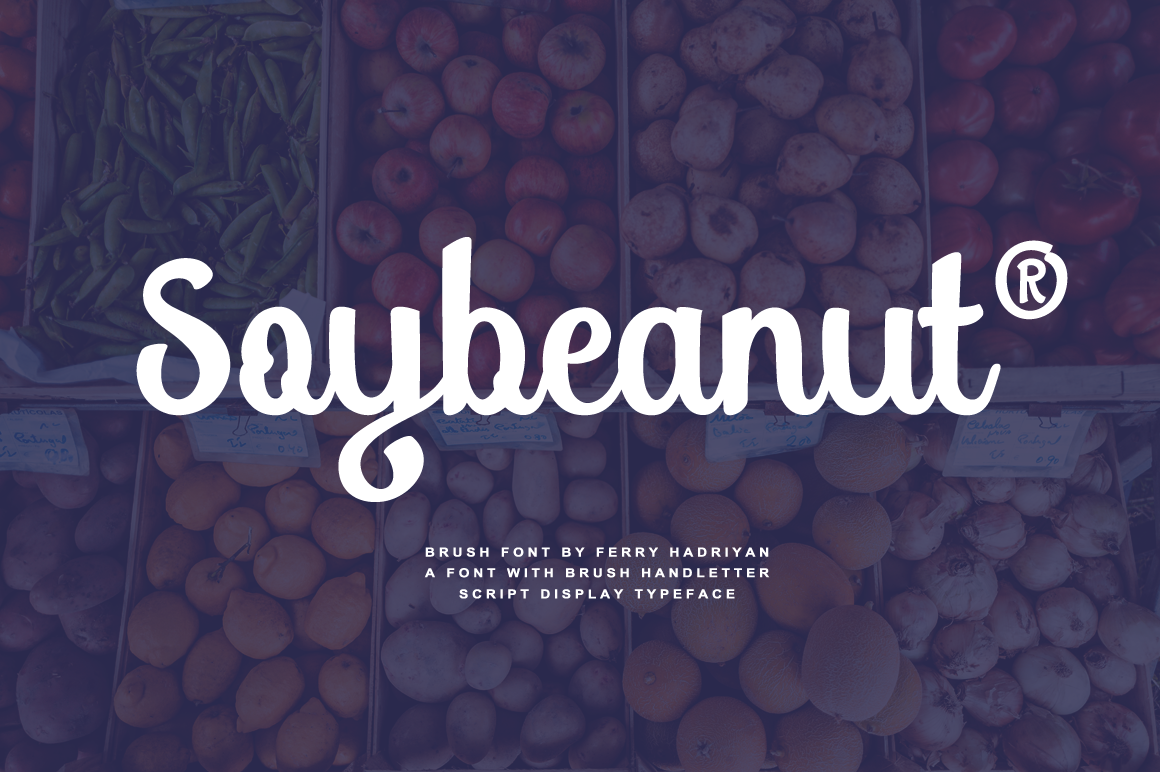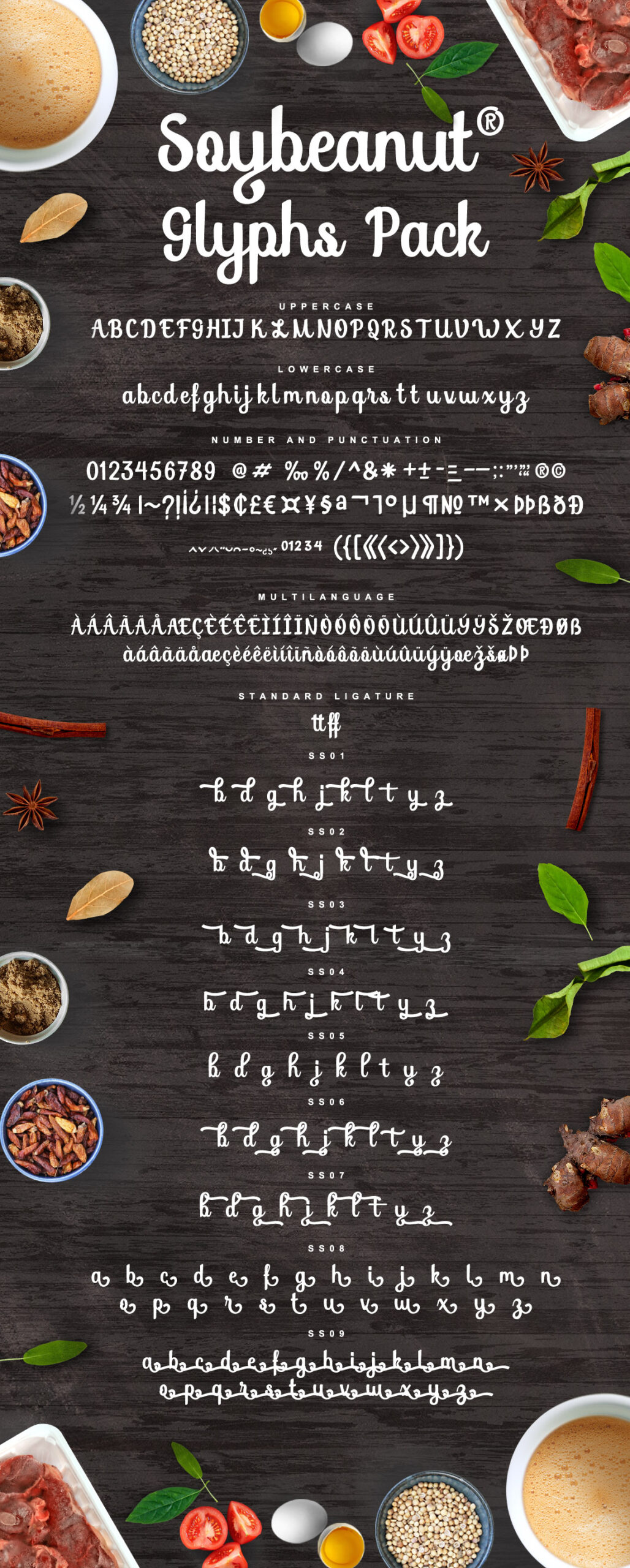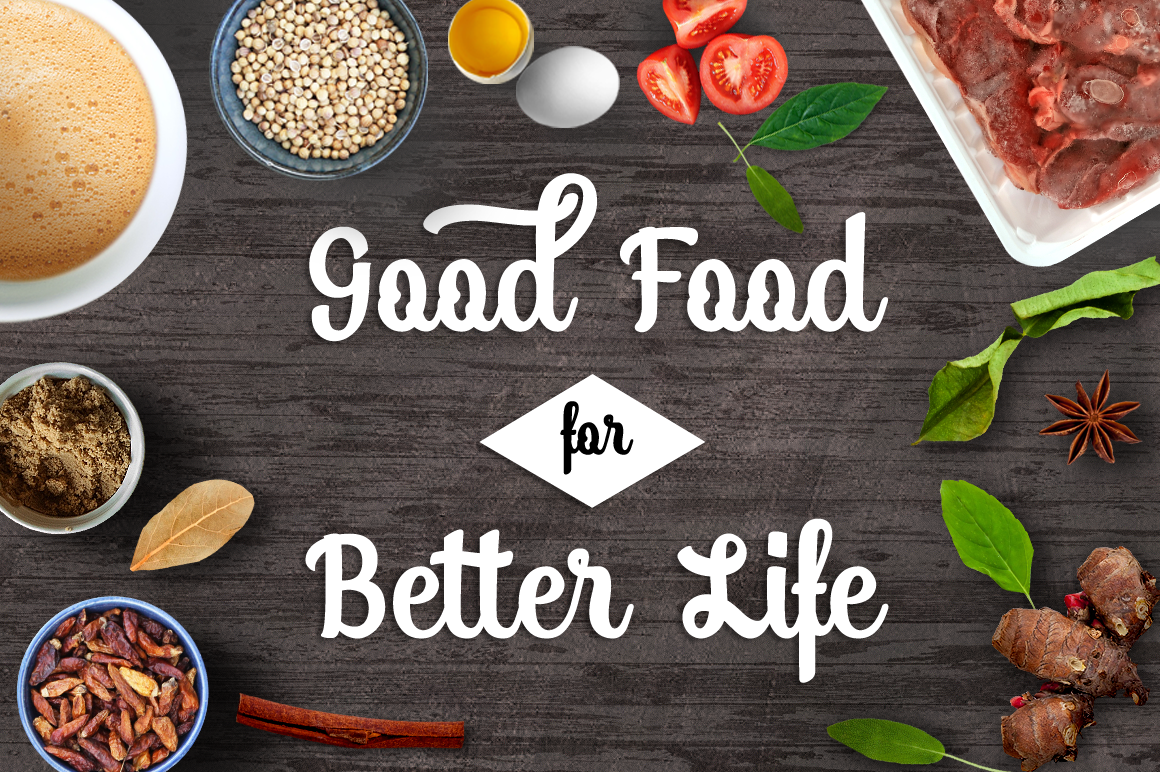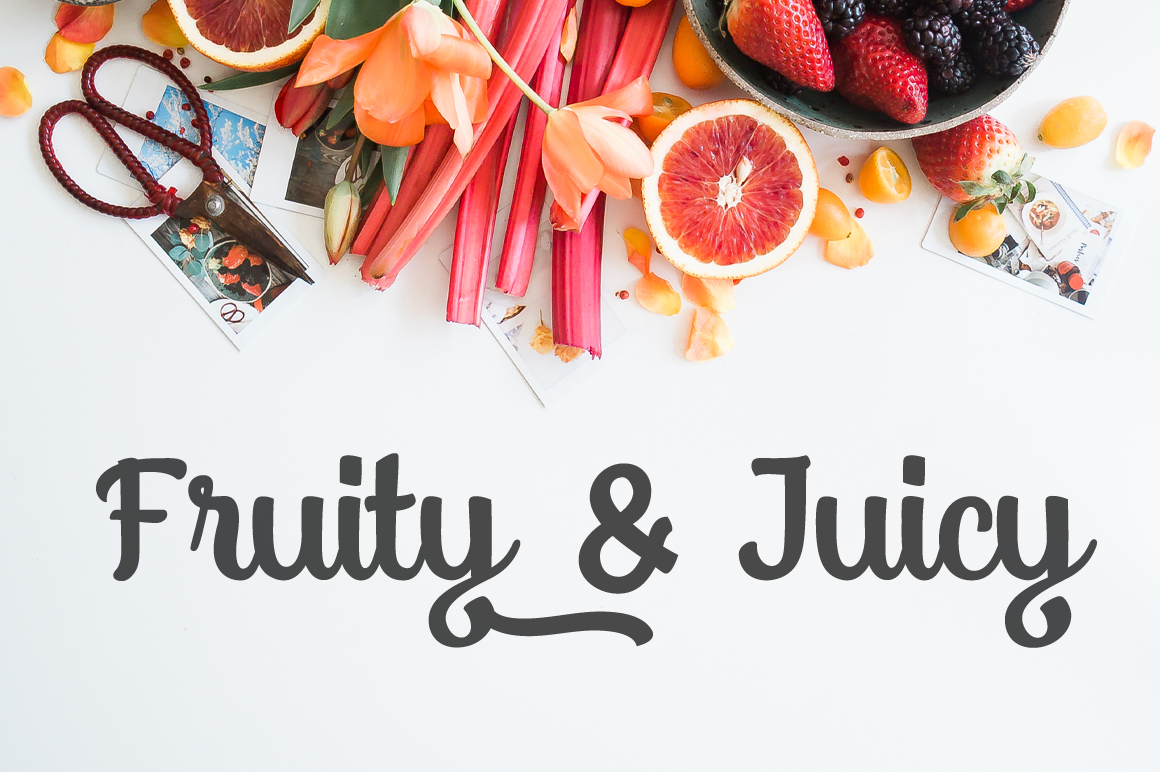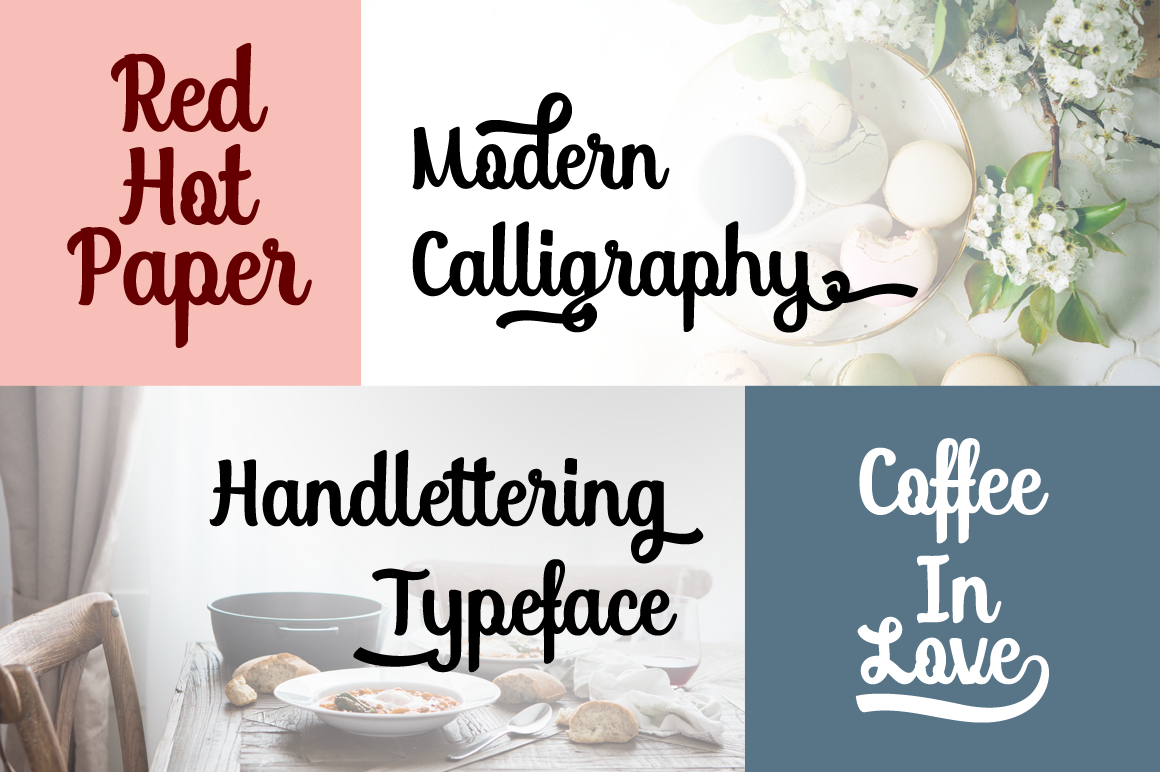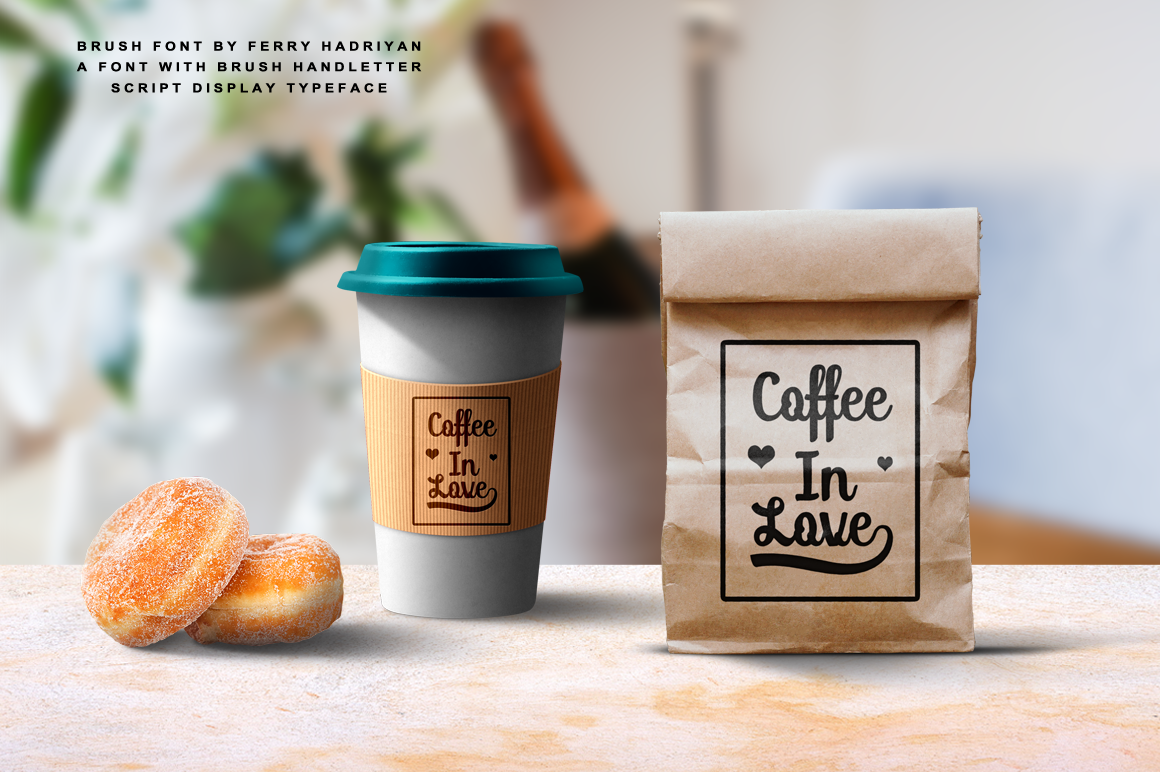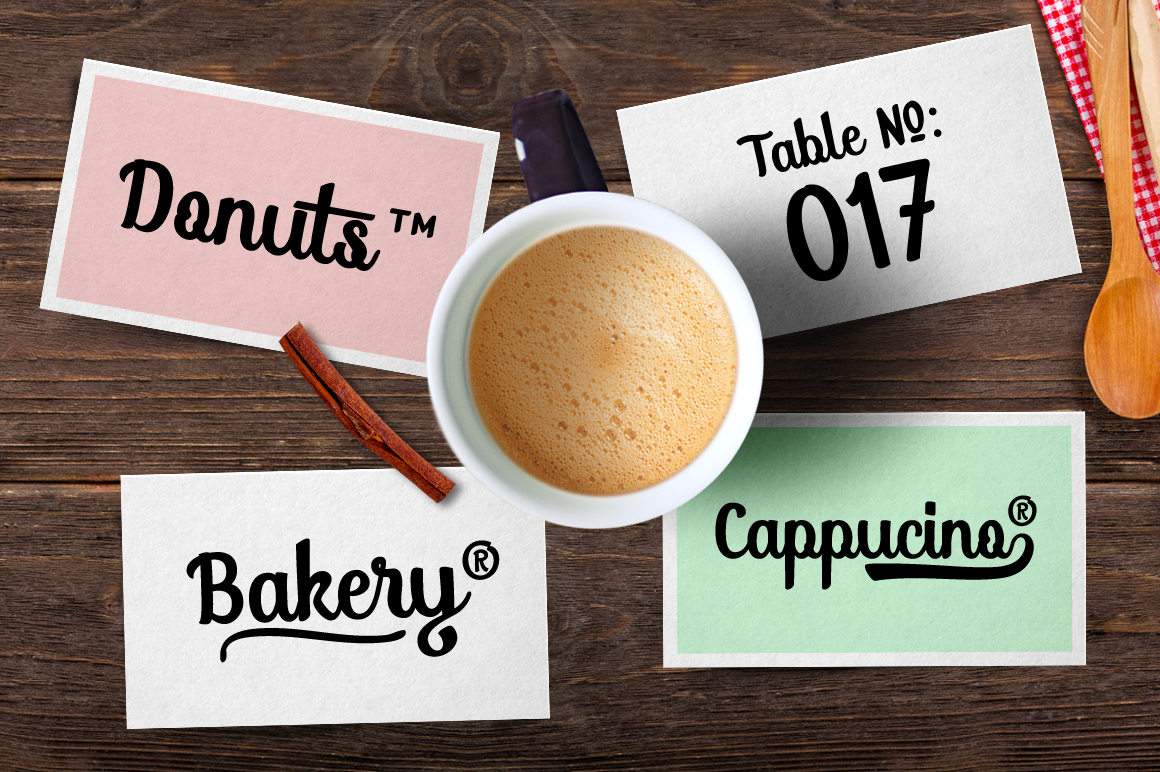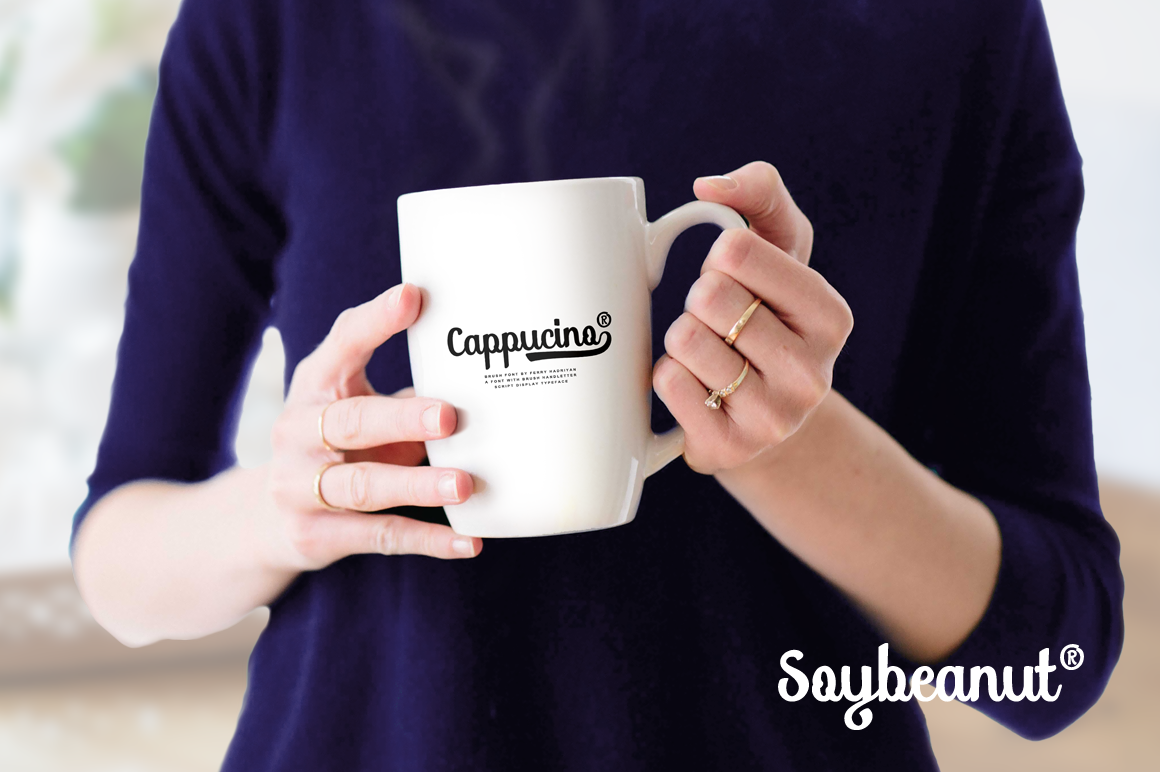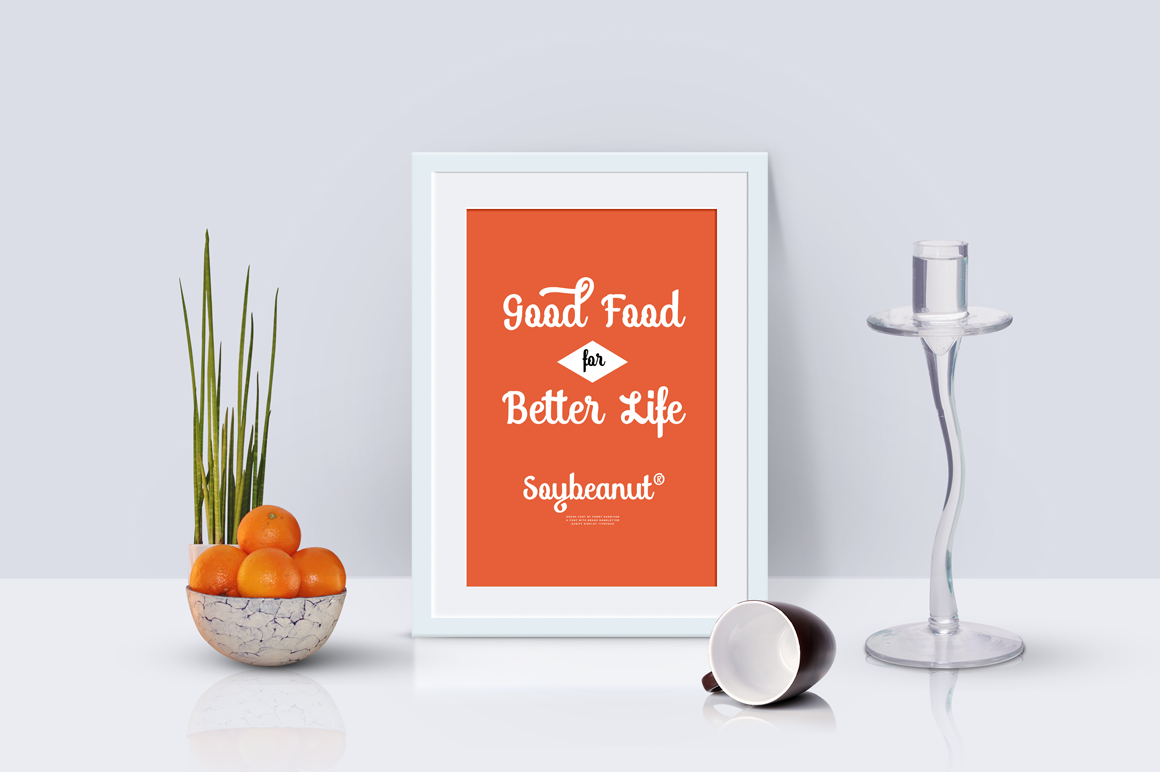
Soybeanut Font
About Soybeanut Font
Soybeanut is a friendly and well-weighted script font; this headline styled font is ideal for logotype and other display ideas, given its boldness and ease of legibility.